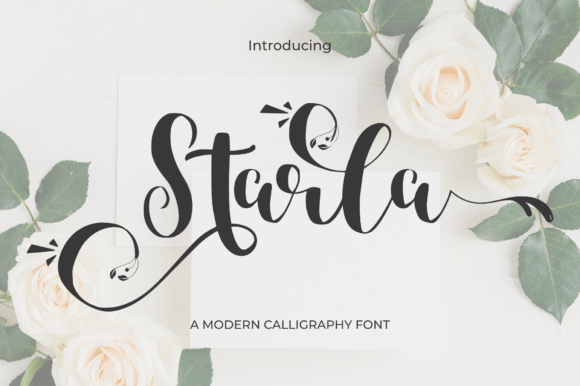
About Starla Font
“Starla” emerges as an incredible script font, masterfully designed to capture hearts and become a true favorite. This font doesn’t just offer a typographic solution; it has the potential to elevate each of your creative ideas to the highest level, making it a standout choice for a range of design projects.
The adjective “incredible” suggests that “Starla” possesses remarkable and awe-inspiring qualities. Whether in its letterforms, spacing, or overall design, the font aims to leave a lasting impression, making it a memorable choice for those seeking to create designs that stand out.
The term “script font” indicates that “Starla” is likely to have a flowing and cursive style. Script fonts are known for their elegance and readability, and “Starla” is positioned to embody these characteristics, making it versatile for various applications.
The claim that the font is “masterfully designed” suggests a high level of craftsmanship. The careful consideration of details, aesthetics, and functionality implies that “Starla” is not just a typeface but a work of art that has been meticulously crafted to meet design standards and evoke a positive response.
The phrase “bring each of your creative ideas to the highest level” underscores the font’s potential to enhance and elevate any creative project. Whether you’re working on branding, print materials, digital designs, or any other creative endeavor, “Starla” is presented as a tool that can take your ideas to new heights.
In essence, “Starla” is not just a font; it’s a design companion that aspires to be a favorite among creators. Its incredible design, script elegance, and promise to elevate creative ideas make it a font worth exploring for those seeking a typographic solution that goes beyond the ordinary.